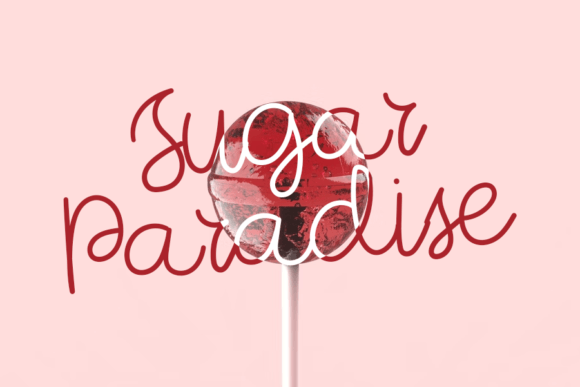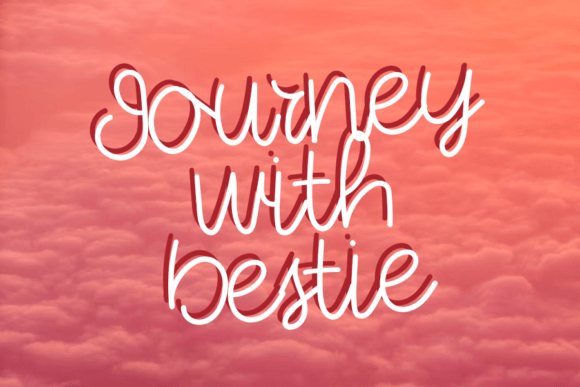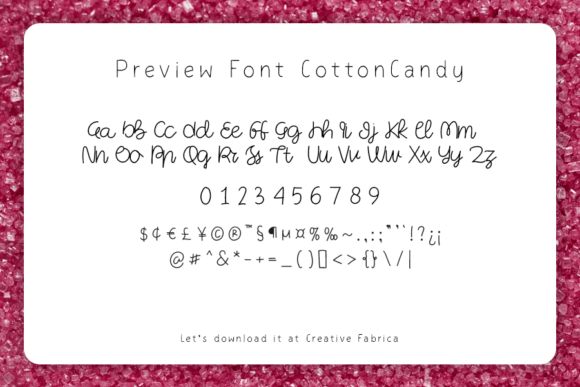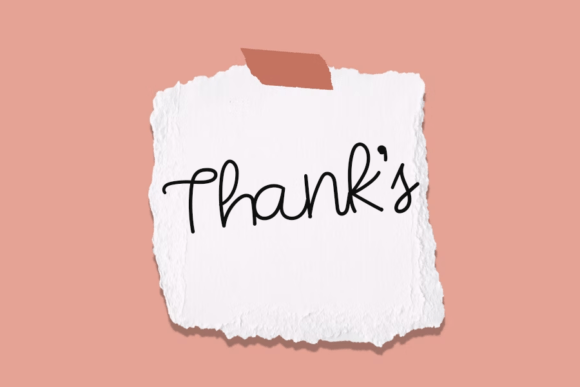
Cottoncandy Font: The Sweetest Addition to Your Design Projects
CottonCandy is a lovely and sweet handwritten script font that has captured the hearts of designers and crafters alike. This gentle font is perfect for adding a touch of whimsy and romance to a variety of design ideas, making it an excellent choice for projects that require a dash of playfulness and charm.
The Characteristics of Cottoncandy Font
CottonCandy is a beautifully crafted handwritten script font that boasts a range of delightful characteristics. Its soft, flowing lines and delicate curves give it a romantic and feminine feel, making it perfect for designs that require a touch of elegance and sophistication. The font’s gentle and whimsical nature makes it an excellent choice for a wide range of design projects, from wedding invitations and baby shower announcements to branding and packaging designs.
What Makes Cottoncandy Font So Versatile?
One of the things that sets CottonCandy apart from other fonts is its incredible versatility. This sweet and charming font can be used in a variety of design projects, including:
- Wedding and Event Designs: Add a touch of romance and whimsy to your wedding invitations, save-the-dates, and other event designs with CottonCandy.
- Branding and Packaging: Use CottonCandy to create beautiful and eye-catching branding and packaging designs that will make your products stand out.
- Digital and Print Materials: CottonCandy is perfect for use in digital and print materials, such as brochures, flyers, and social media graphics.
- Crafting and DIY Projects: CottonCandy is a great choice for crafters and DIY enthusiasts who want to add a personal touch to their projects, such as handmade cards and gift tags.
How to Use Cottoncandy Font in Your Designs
Using CottonCandy in your designs is easy and straightforward. Here are a few tips to get you started:
- Pair it with Other Fonts: CottonCandy pairs beautifully with other fonts, such as bold and modern sans-serif fonts. Experiment with different font combinations to create unique and eye-catching designs.
- Experiment with Colors: CottonCandy looks beautiful in a range of colors, from soft pastels to bold and bright hues. Experiment with different colors to find the perfect combination for your design.
- Add Decorative Elements: Consider adding decorative elements, such as flowers or illustrations, to your designs to enhance the whimsical and romantic feel of CottonCandy.
Why Designers and Crafters Love Cottoncandy Font
Designers and crafters love CottonCandy for a range of reasons, including:
- Its Unique and Whimsical Feel: CottonCandy has a unique and whimsical feel that sets it apart from other fonts.
- Its Versatility: CottonCandy can be used in a wide range of design projects, making it a great addition to any designer’s or crafter’s toolkit.
- Its Ease of Use: CottonCandy is easy to use and pairs well with other fonts and design elements.
CottonCandy is a lovely and sweet handwritten script font that is perfect for designers and crafters who want to add a touch of whimsy and romance to their design projects. With its gentle and flowing lines, delicate curves, and whimsical feel, CottonCandy is sure to become a favorite font in your design toolkit. Whether you’re working on a wedding invitation, branding design, or crafting project, CottonCandy is the perfect choice for adding a dash of playfulness and charm.